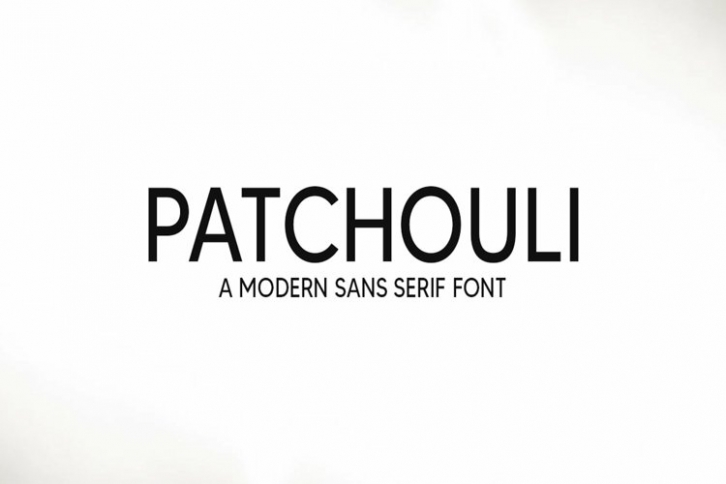
The Serif Bundle is a trendy and unique font with an authentic style. It was designed by Salt and Pepper Designs and it's a great choice for creative people who need such a font. It was released on April 10, 2021 and the file size is 8.92 MB. The Serif Bundle will add an organic vibe to any design idea!